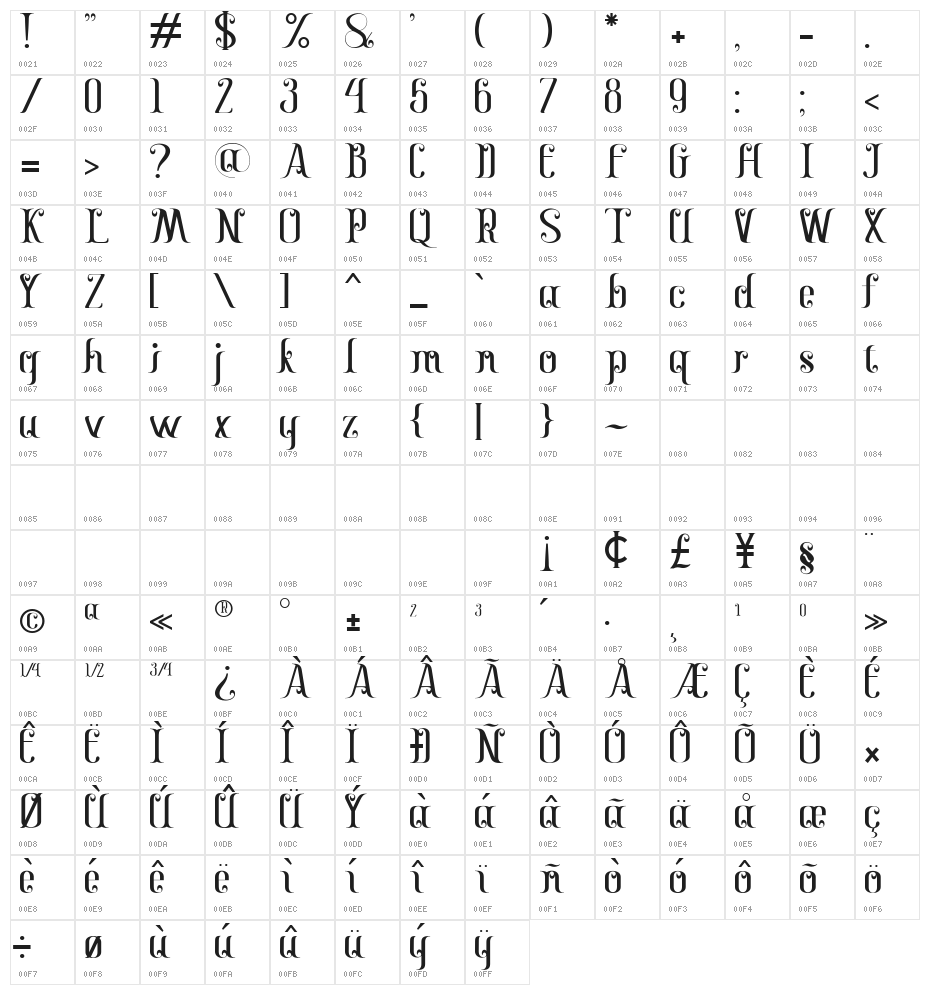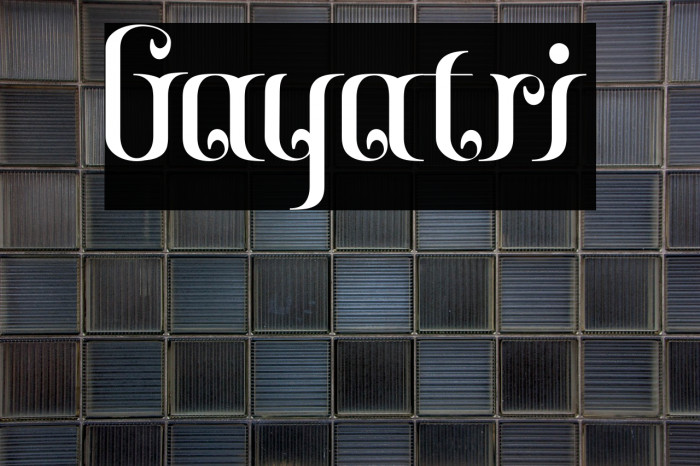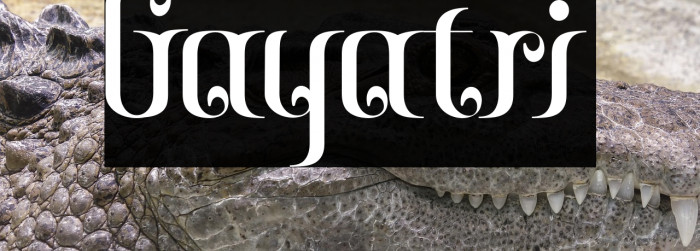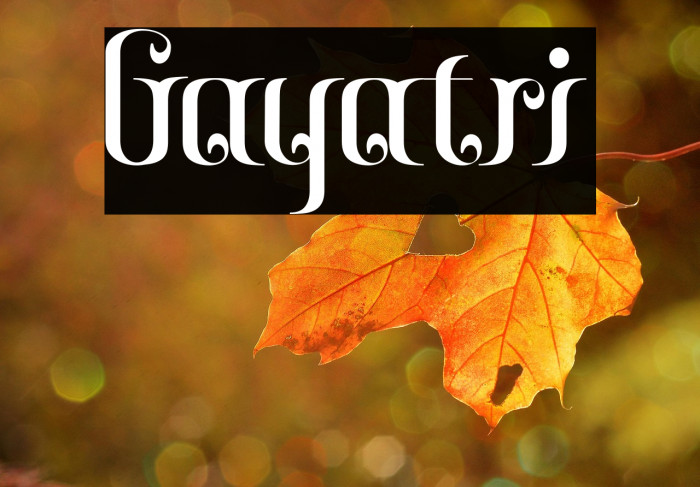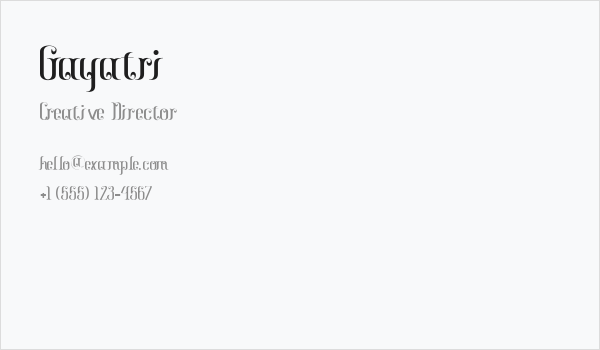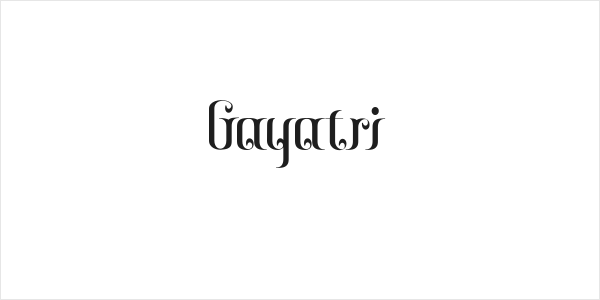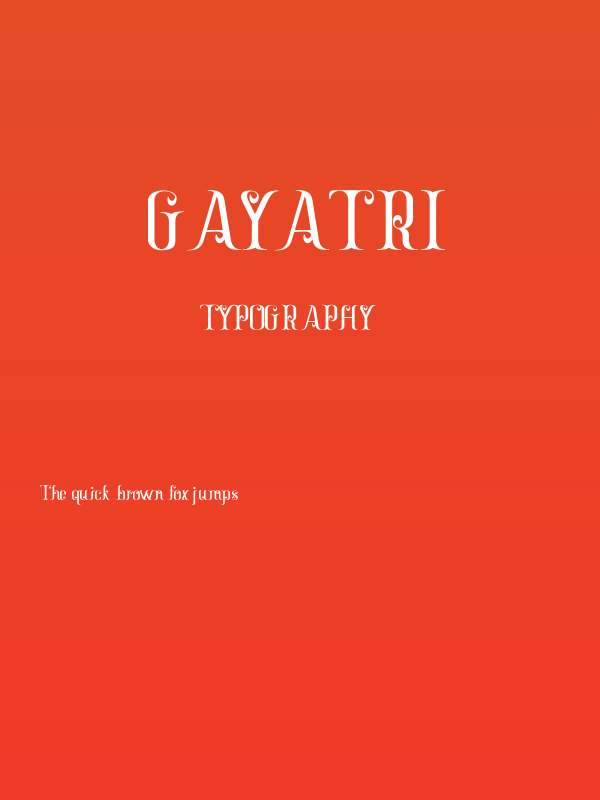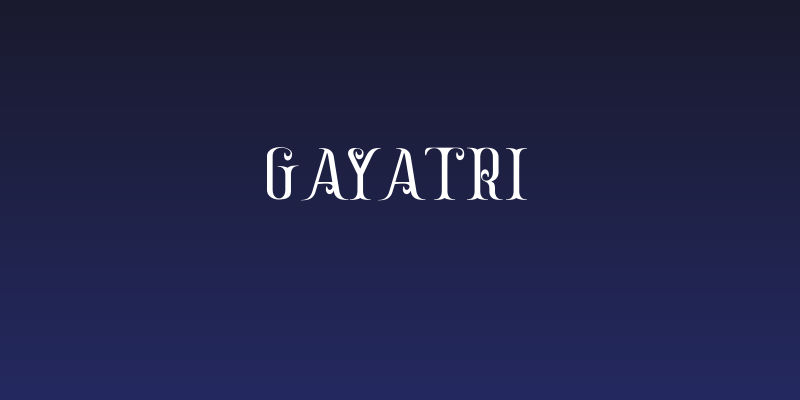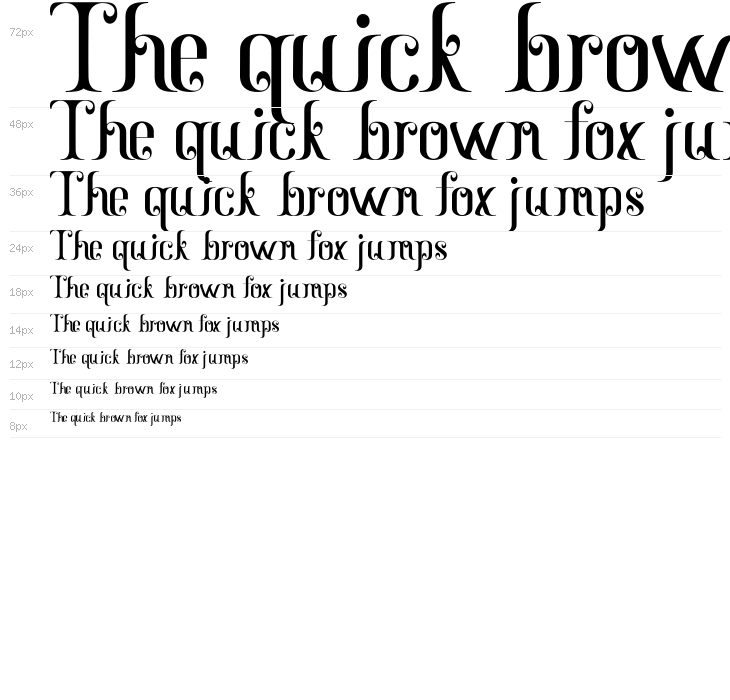
Gayatri Font
Gayatri Description
This font features a unique blend of modern and vintage elements, characterized by its elegant curves and distinct serifs. The uppercase letters are bold and commanding, with a slight flourish that adds a touch of sophistication. The lowercase letters maintain a consistent style, offering a harmonious balance with the uppercase. Numbers are designed with a similar flair, ensuring readability while maintaining the font's decorative nature. Special characters are thoughtfully crafted, integrating seamlessly with the overall design. The font's high contrast in stroke thickness enhances its visual appeal, making it suitable for eye-catching displays.
| Proposed Projects | Ideal for branding, logo design, packaging, and editorial headlines where a touch of elegance and uniqueness is desired. |